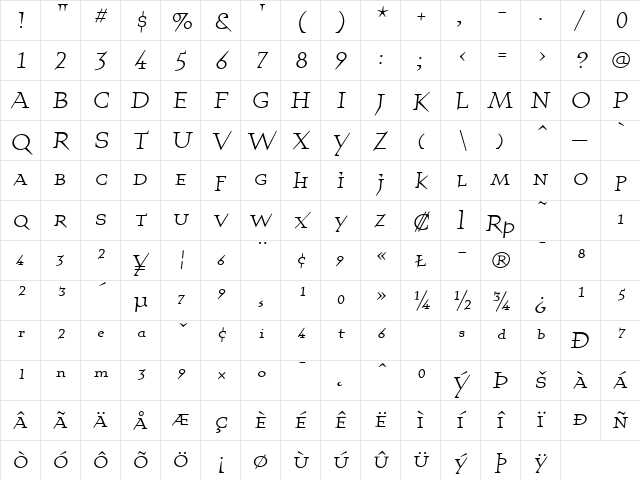
QuartetSmallcapsRegular Medium Free Font
QuartetSmallcapsRegular Medium
Foundry: C) Emigre Graphics, Designed by Zuzana Licko
Design Context for QuartetSmallcapsRegular
QuartetSmallcapsRegular is a composed and adaptable typeface that performs quietly and consistently across a wide range of design contexts.